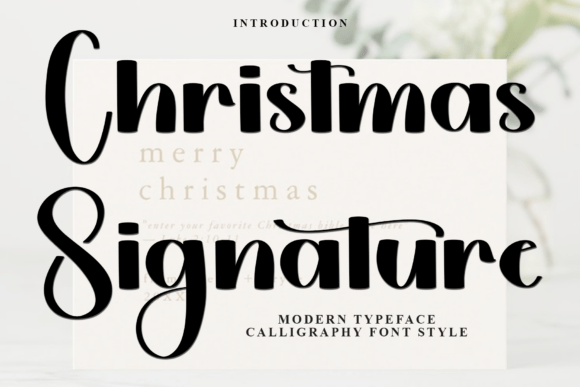
Get into the Holiday Spirit with the Christmas Signature Font
There’s something magical about creating holiday projects – the twinkling lights, the cozy atmosphere, and the joy of sharing love and cheer with others. It’s the perfect time to unleash your creativity and bring a touch of warmth to your designs. As you start brainstorming ideas for your Christmas cards, event flyers, or social media graphics, you might be searching for the perfect font to capture the essence of the season.
That’s where the Christmas Signature Font comes in – a bold, elegant, and festive script font that embodies the spirit of the holidays. With its modern, clean style and exaggerated ascenders, this font is perfect for designers who want to add a touch of magic to their creations. Whether you’re creating a winter-themed logo or a festive branding project, the Christmas Signature Font is sure to bring a smile to your clients’ faces and make your designs stand out from the crowd.
- Unique Characteristics: Includes festive ornaments, holly leaves, and snowflakes to create a holiday-themed signature
Designer Review: Christmas Signature Font
I was excited to dive into the Christmas Signature Font and see what it had to offer. Overall, I found it to be a solid, yet somewhat predictable, holiday font.
- The font’s whimsical feel captures the essence of the holiday season.
- The high-quality graphics and textures add a nice touch of sophistication.
- The versatility of the font makes it suitable for a wide range of applications, from greeting cards to advertisements.
- The font’s design feels a bit overused and doesn’t particularly stand out from other holiday fonts.
- The limited customization options may be a disappointment for designers looking for more flexibility.
- The font’s systematic feel may not be ideal for projects requiring a more organic or hand-drawn look.
While the Christmas Signature Font is a solid choice for holiday designs, it doesn’t particularly break new ground in terms of creativity or originality. It’s a safe, reliable option that will get the job done, but may not leave a lasting impression.
The Christmas Signature Font is perfect for:
- Creating festive holiday cards and invitations.
- Designing holiday-themed social media graphics.
- Adding a touch of holiday cheer to your website or blog.
To get the most out of the Christmas Signature Font, try:
- Pairing it with bold, bright colors to create a festive look.
- Using it in combination with other holiday-themed fonts for a unique look.
- Experimenting with different font sizes and styles to create visual interest.
Alternative Christmas Fonts for Designers
Great Vibes is a modern, elegant script font that is perfect for creating a festive and sophisticated look. It features flowing lines and intricate details that evoke the feeling of the holiday season. Great Vibes is ideal for use in wedding invitations, holiday cards, and other special occasion designs.
Compared to Christmas Signature Font, Great Vibes has a more refined and polished look, making it suitable for high-end designs. It lacks the bold, playful feel of Christmas Signature Font, but offers a unique and sophisticated alternative.
Carolyna Pro is a luxurious, handwritten font that is reminiscent of vintage holiday cards. It features bold, expressive lines and elegant flourishes that add a touch of glamour to any design. Carolyna Pro is perfect for use in luxury brand identities, holiday advertising, and high-end packaging designs.
Compared to Christmas Signature Font, Carolyna Pro has a more dramatic and luxurious feel, making it ideal for high-end designs. It offers a more elegant and sophisticated alternative to the playful, whimsical feel of Christmas Signature Font.